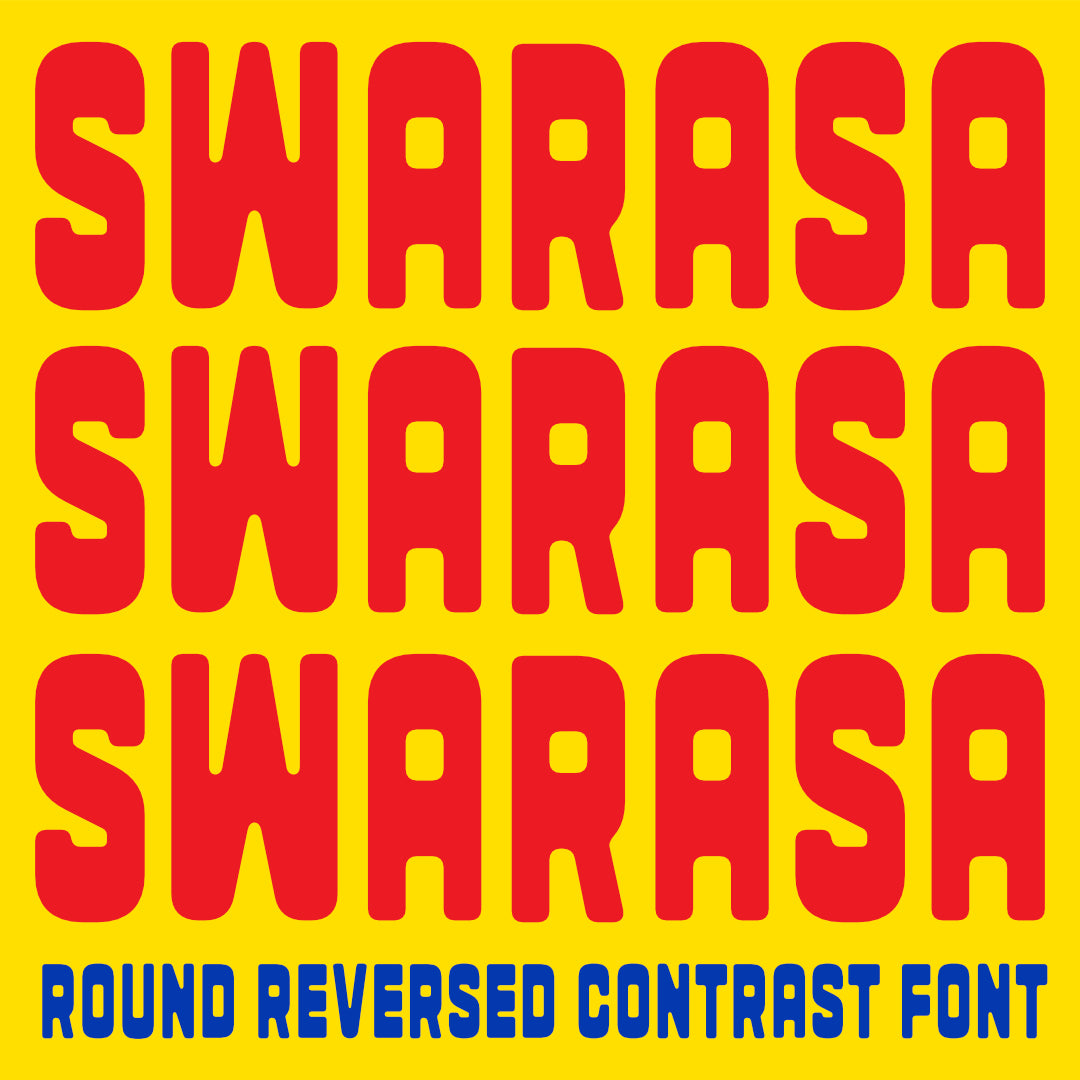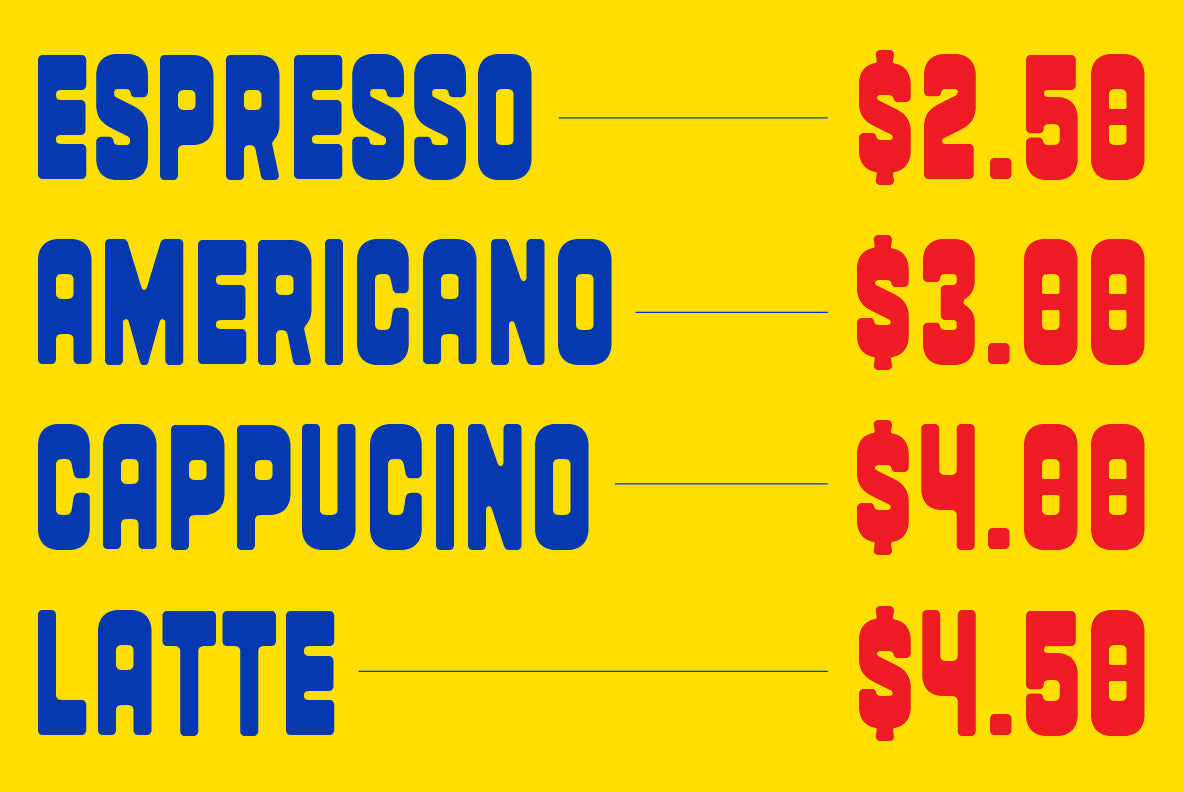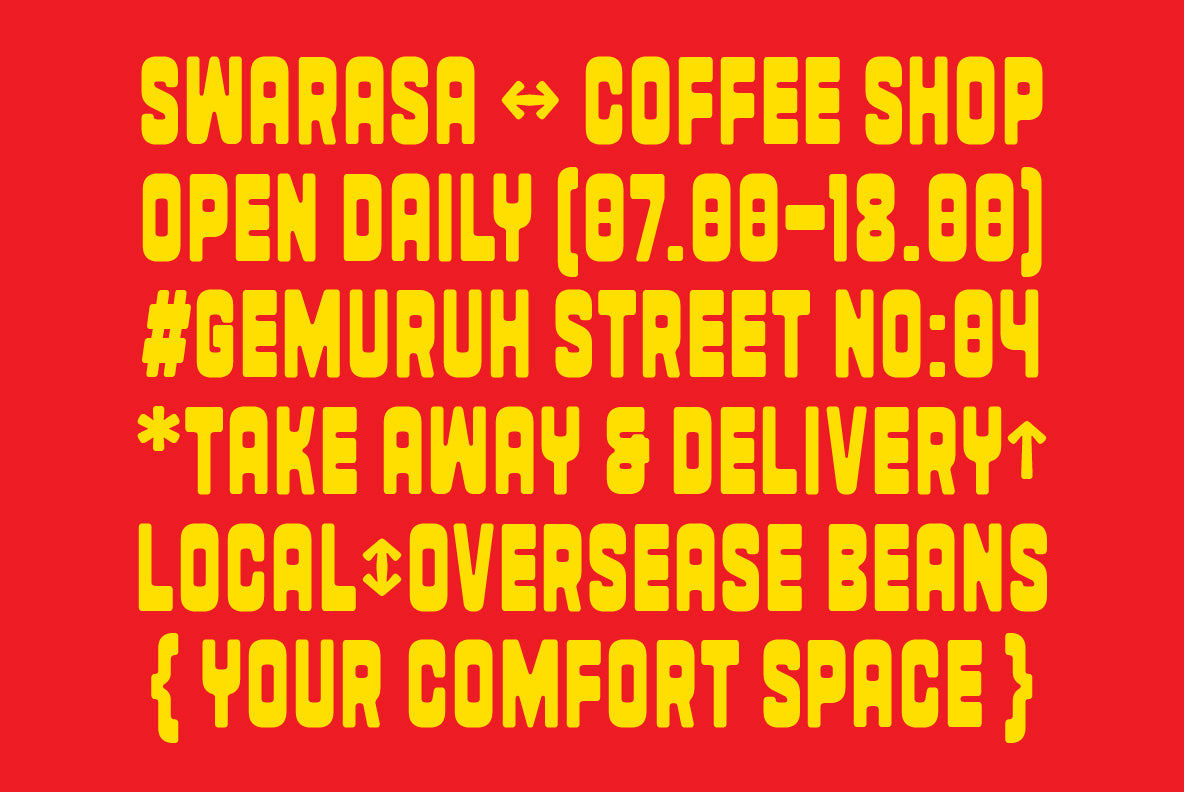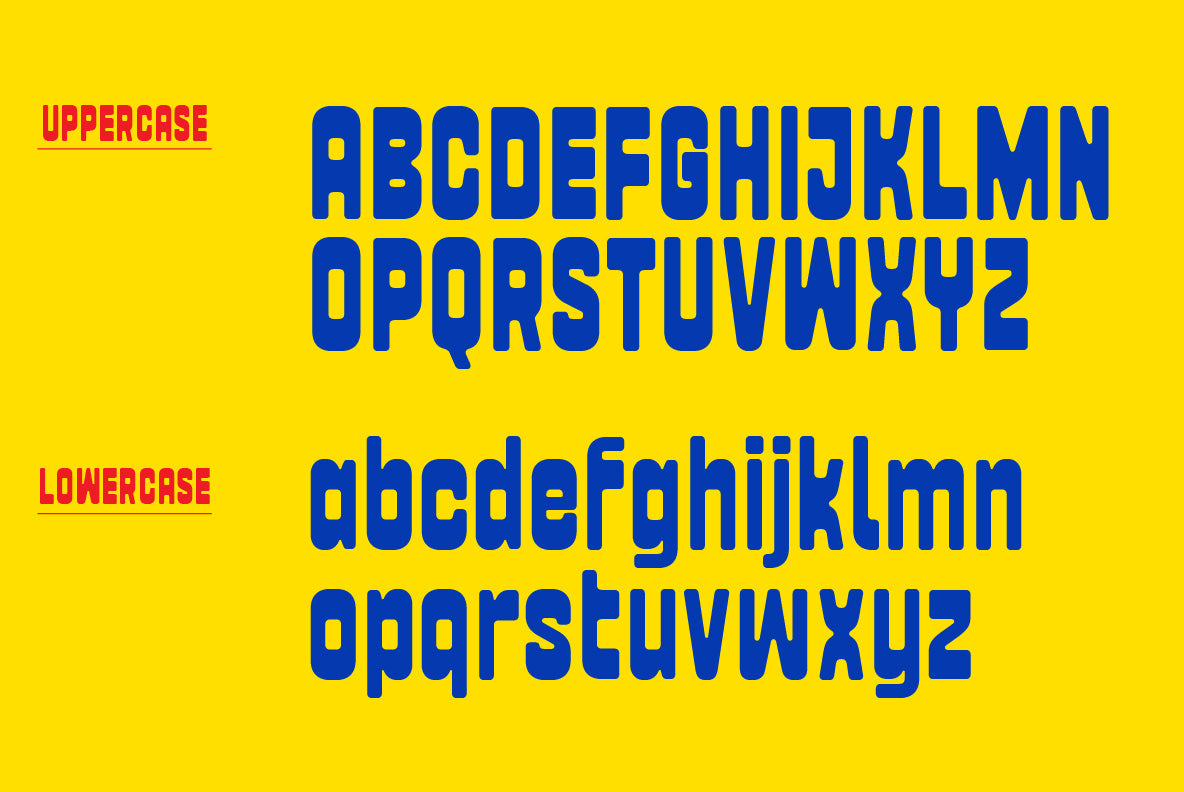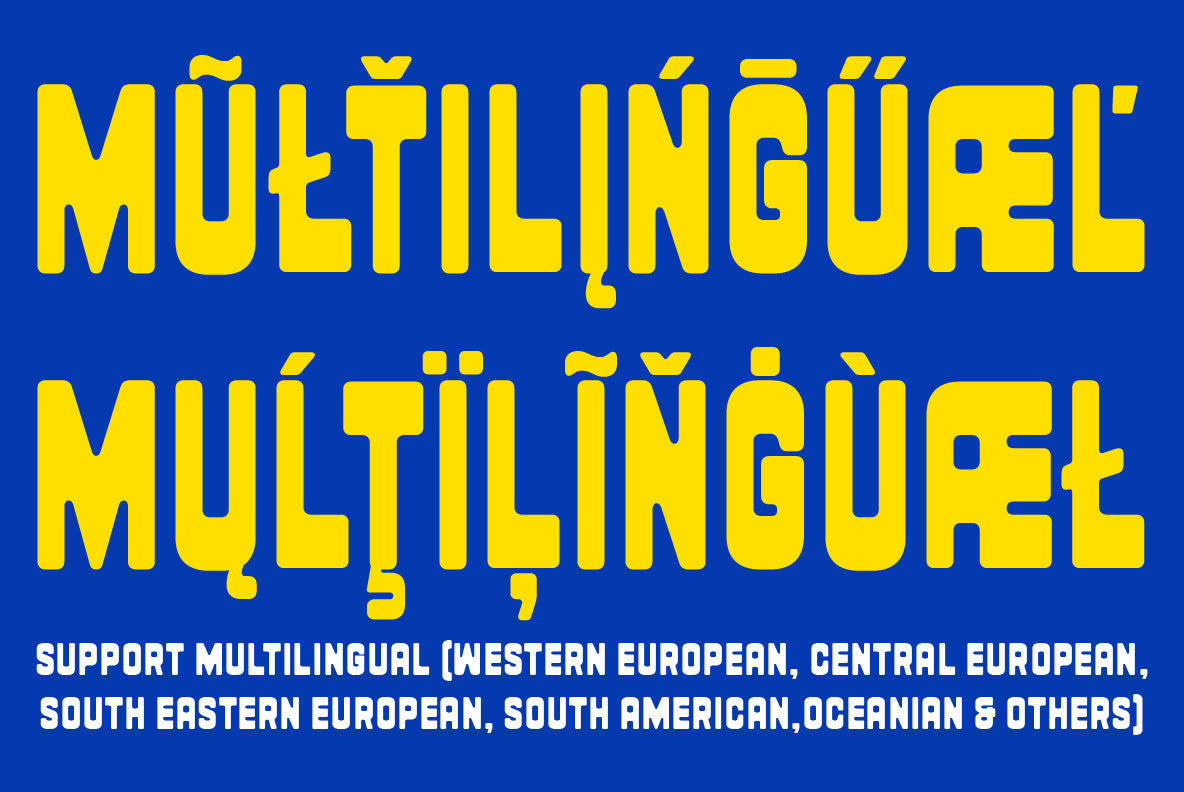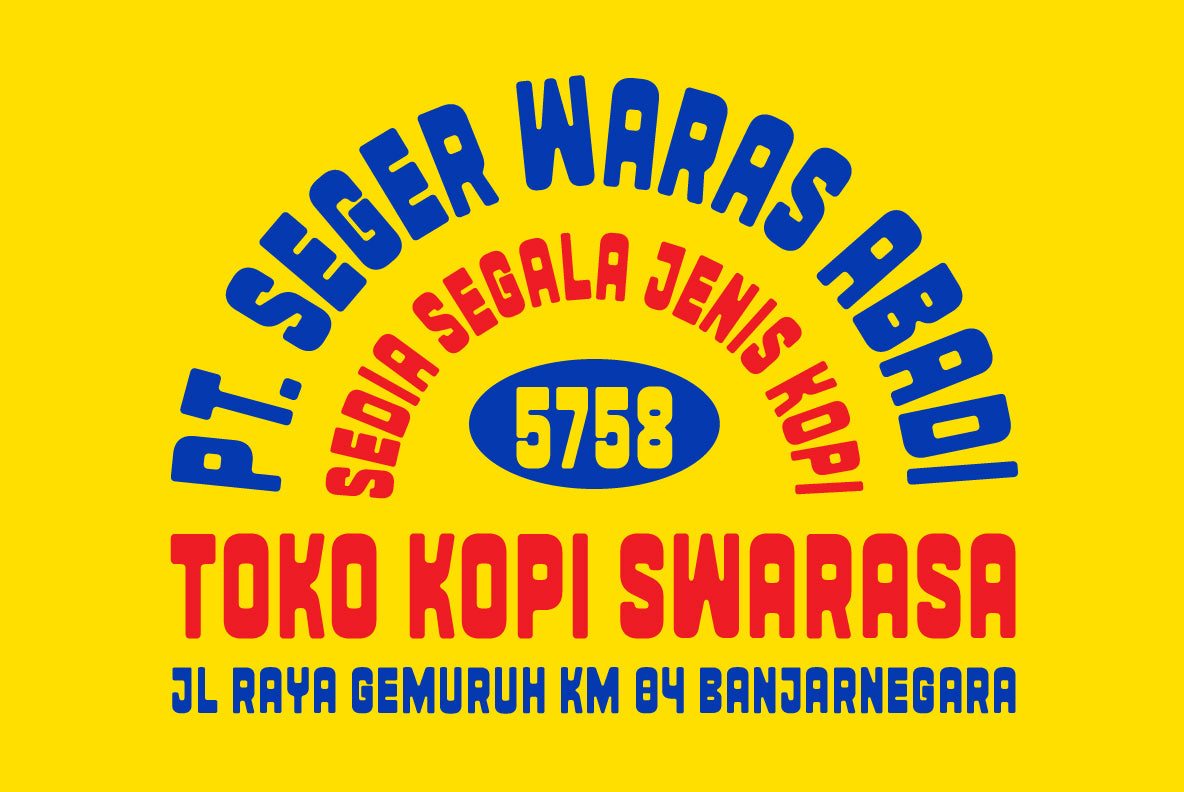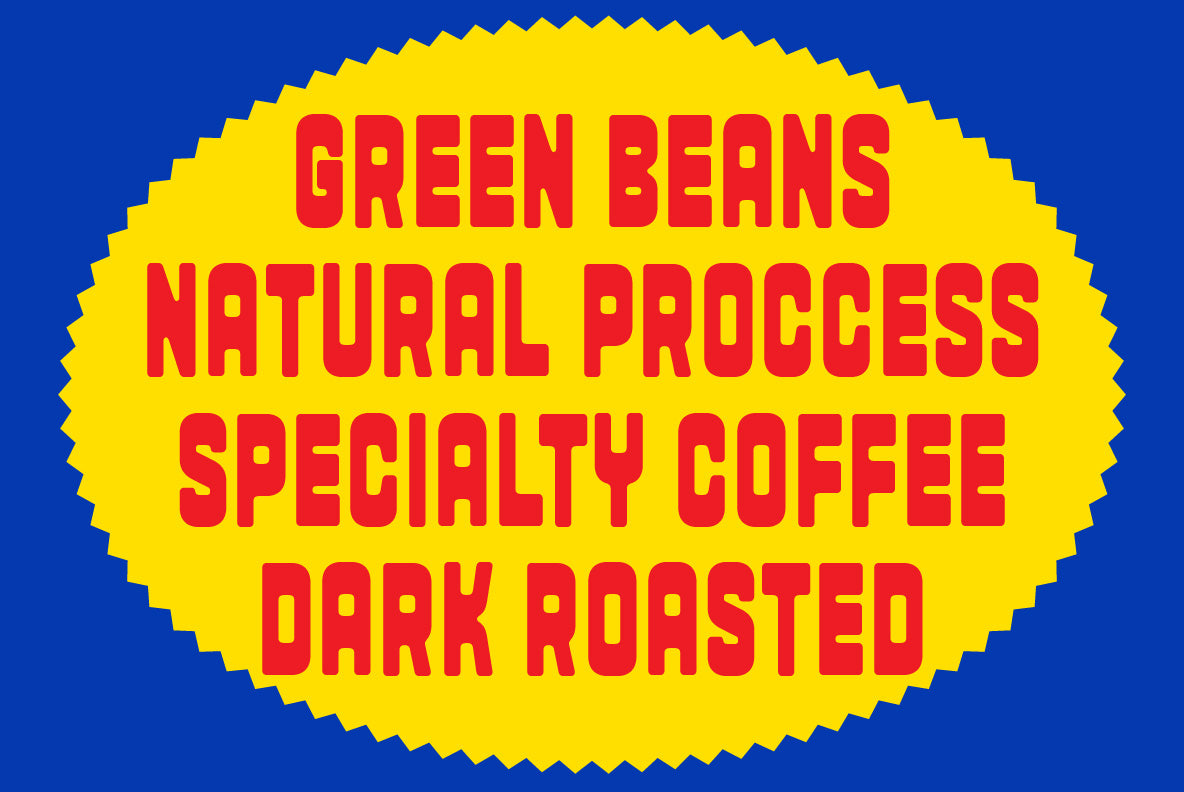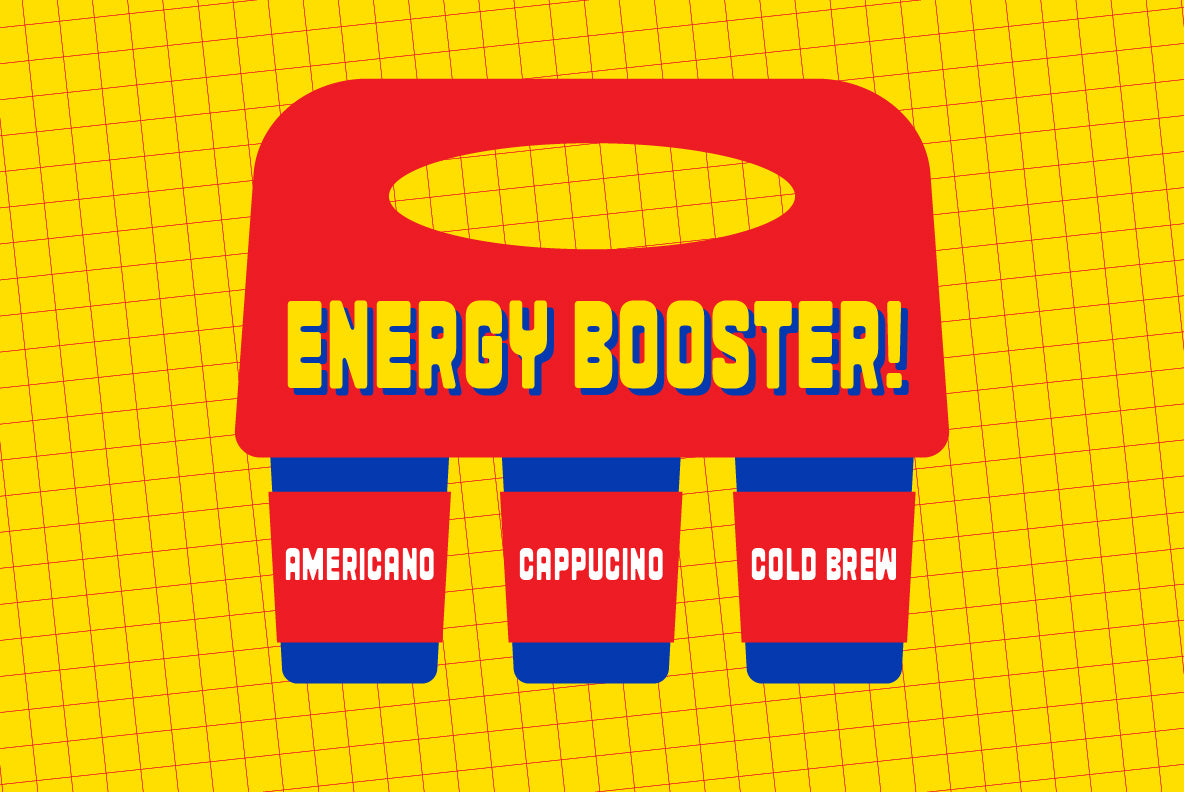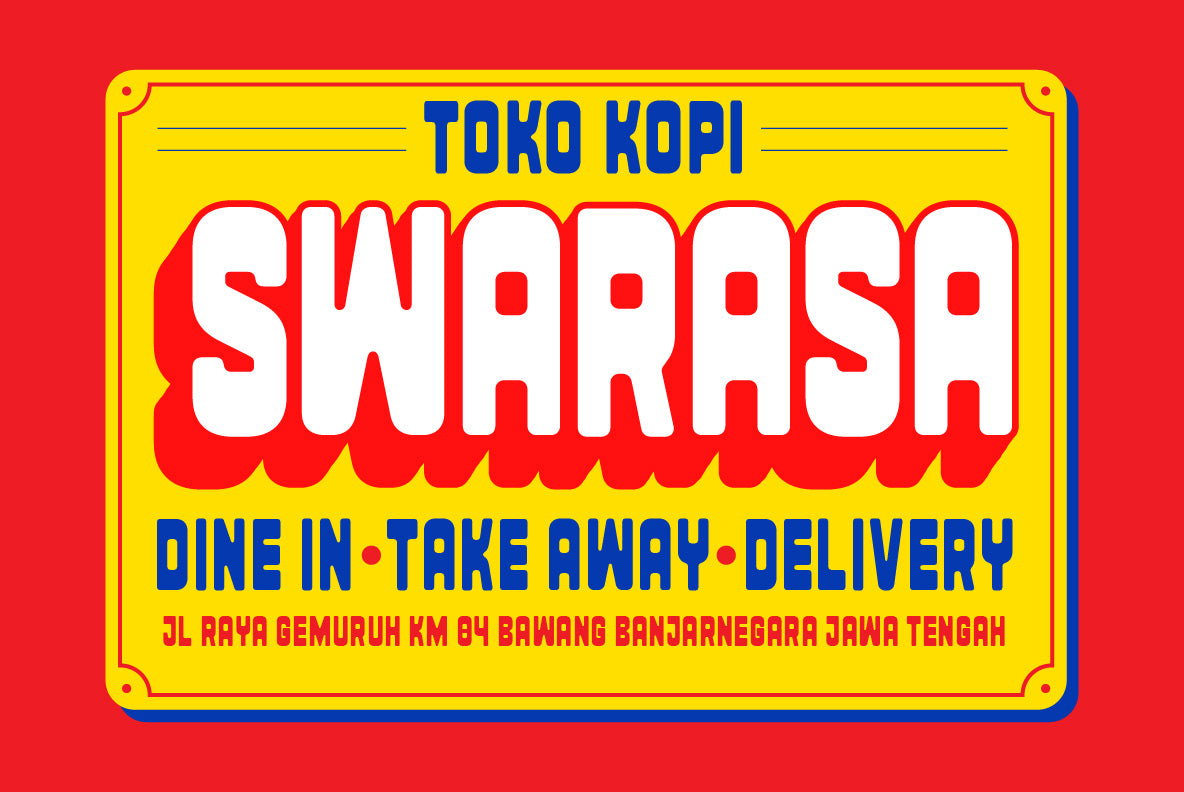
Swarasa – Round Reversed Contrast Font
Swarasa is a distinctive round reversed contrast display font that combines chunky rounded forms with an unconventional inverted stroke contrast. Bold, playful, and full of character, Swarasa brings a fresh interpretation of retro-inspired typography while maintaining excellent readability at display sizes.
Its rounded shapes and reversed contrast construction create a unique visual rhythm, making Swarasa an eye-catching choice for brands and creative projects that need typography with personality.
Swarasa is especially suited for food and beverage branding, coffee packaging, posters, editorial design, labels, merchandise, and playful retro-inspired graphics.
Perfect for
Food & beverage branding
Coffee shop branding
Coffee packaging
Food packaging
Artisan labels
Organic product branding
Retro posters
Pop-art graphics
Editorial & zines
Album covers
Merchandise & apparel
Stickers
Signage
Logos & headlines
Social media graphics
Swarasa brings together reversed contrast typography, chunky rounded forms, and playful retro character into a distinctive display font made for brands and designers who want to stand out.
Swarasa is a round reversed contrast display font featuring chunky rounded letterforms combined with an inverted stroke contrast structure. It is designed for display sizes and maintains readability while offering a bold, retro-inspired aesthetic.